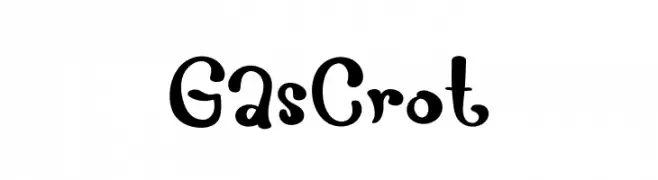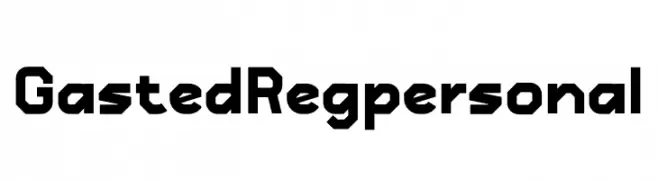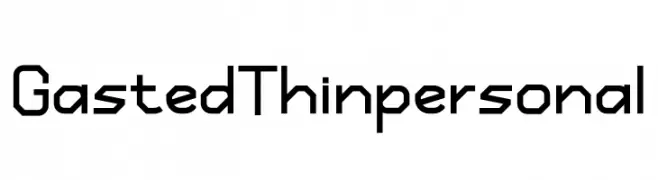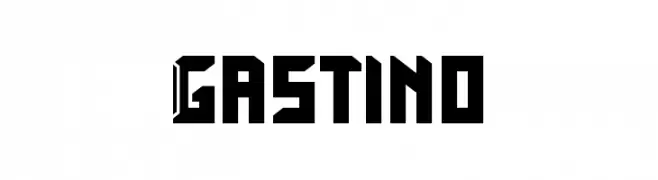
A bold, hand-drawn font with a dynamic, marker-like style.
A bold, expressive handwritten font with thick, brush-like strokes.
A playful, bold handwritten font with a whimsical and flowing style.
A bold, angular, hand-drawn font with a dynamic and energetic style.
A bold, geometric font with sharp edges and a modern style.
A geometric, angular font with a modern and futuristic style.
A bold, geometric font with sharp angles and a modern look.
A bold, playful script font with a handwritten feel.
A graceful, cursive script font with a natural handwritten style.
A refined serif font with high contrast and elegant, elongated strokes.